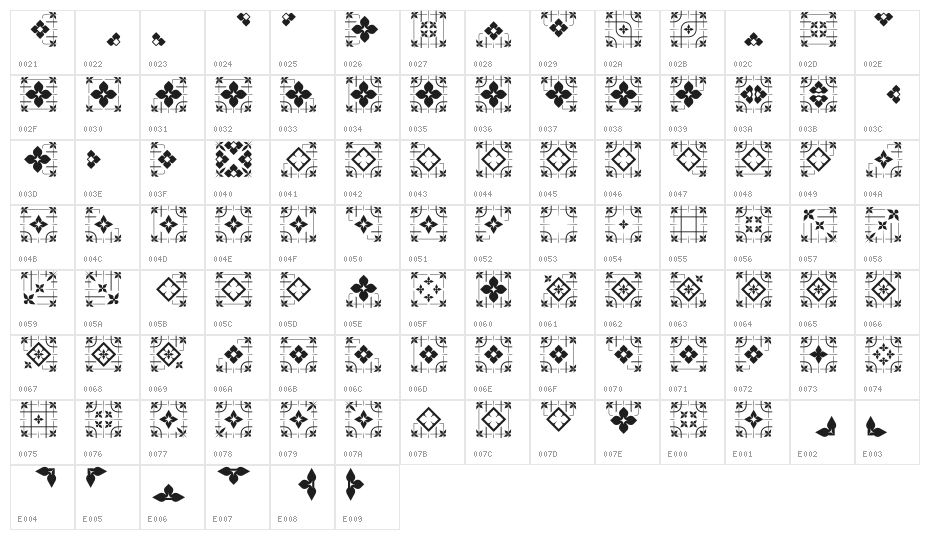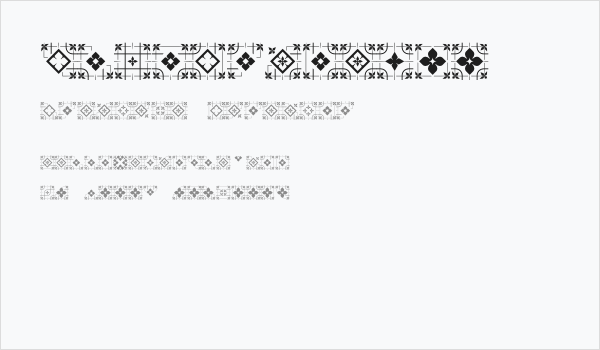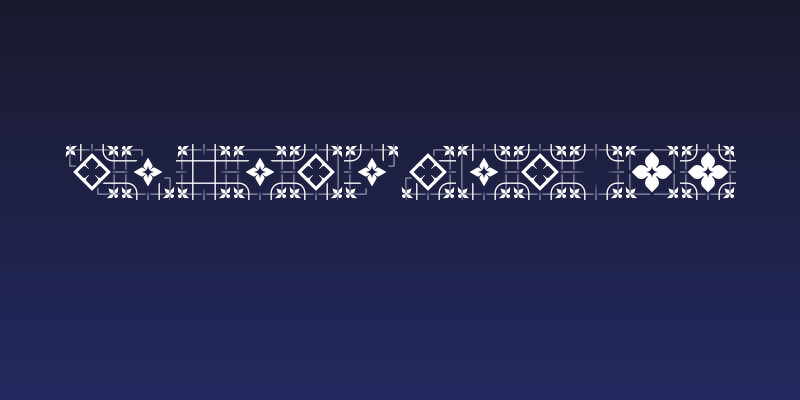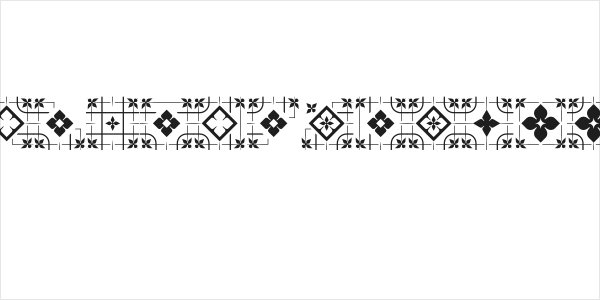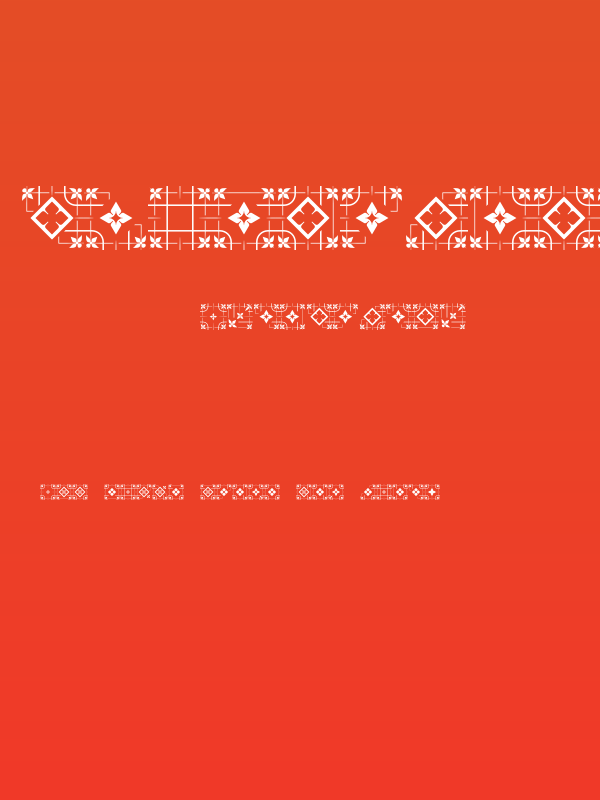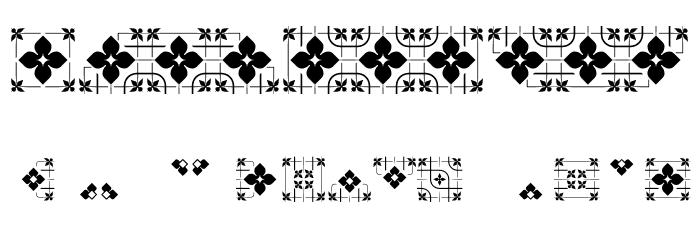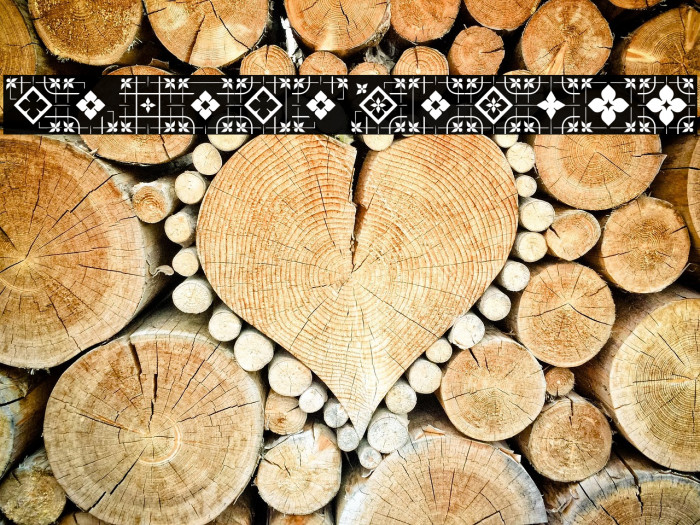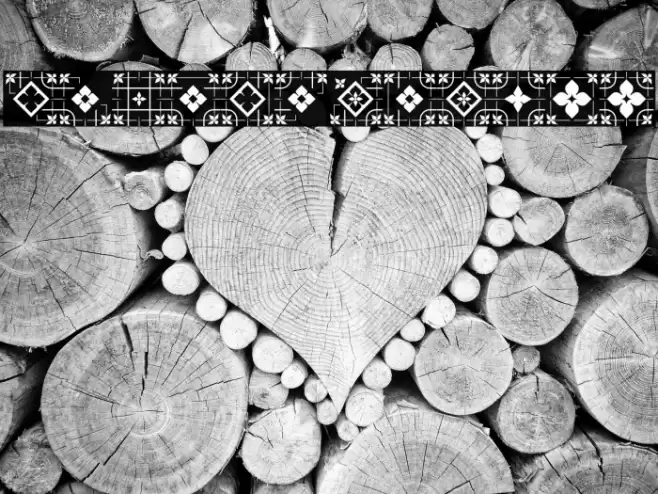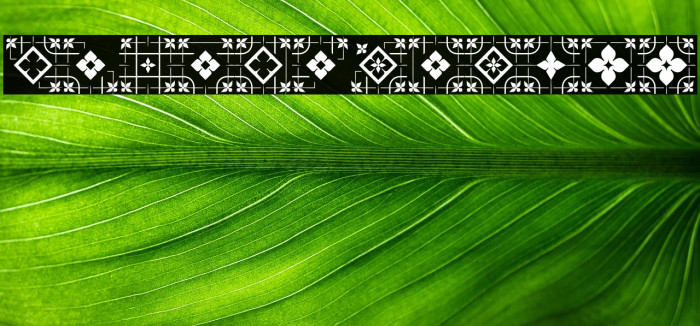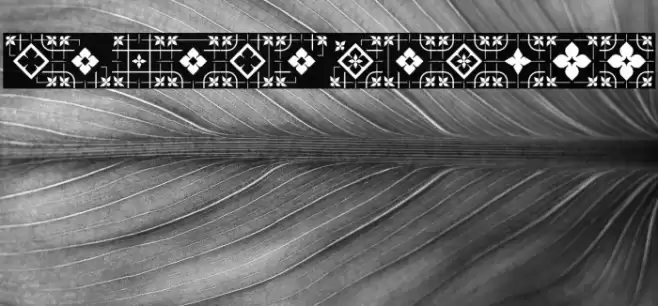
GlukFrames05 Font
GlukFrames05 Description
This design features intricate geometric patterns with a strong emphasis on symmetry and repetition. The elements are composed of diamond shapes, crosses, and floral motifs, creating a decorative and ornate appearance. The design is highly detailed, with each component meticulously arranged to form a cohesive and visually appealing pattern. The use of bold lines and contrasting shapes gives it a striking and elegant look, suitable for decorative purposes.
| Use Case | Decorative elements, artistic designs, borders. |
| Proposed Projects | Ideal for decorative borders, wallpapers, textile designs, and artistic projects requiring intricate patterns. |